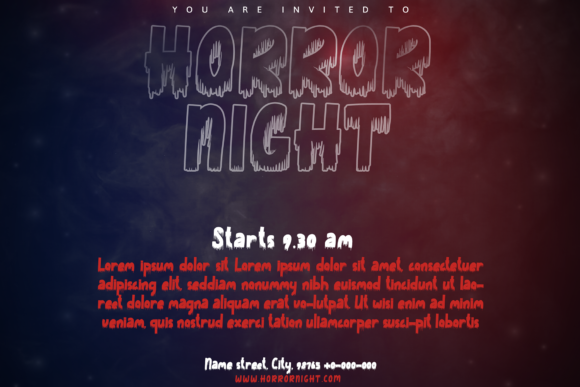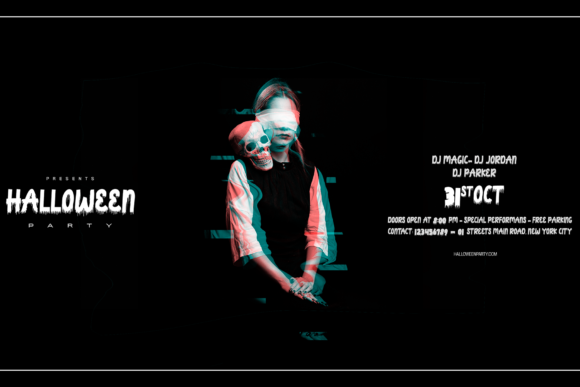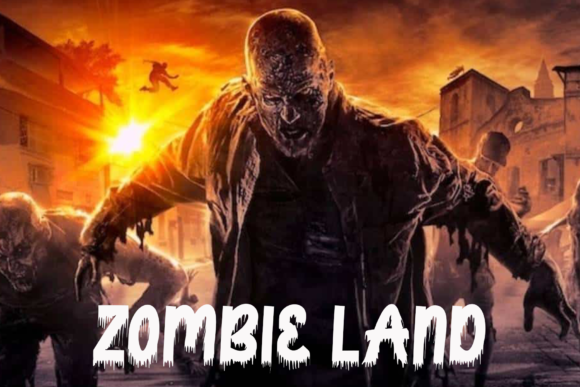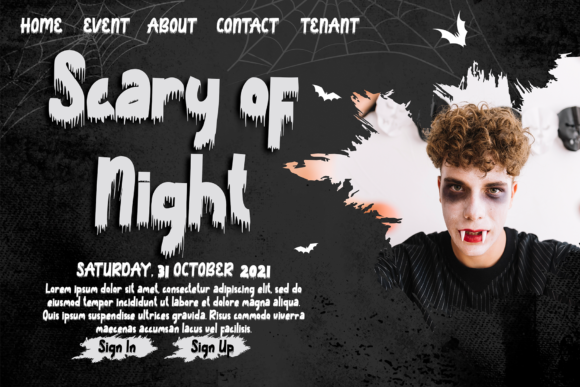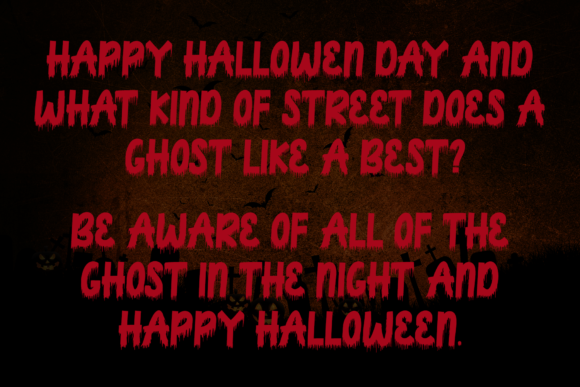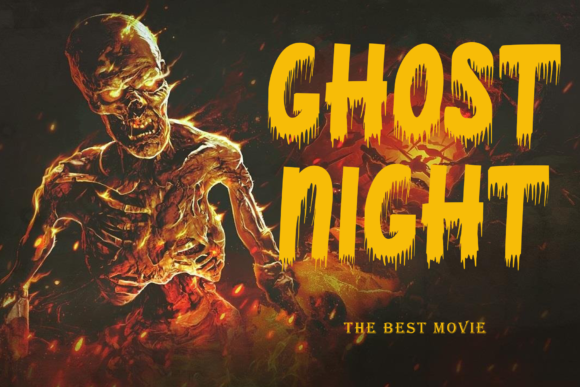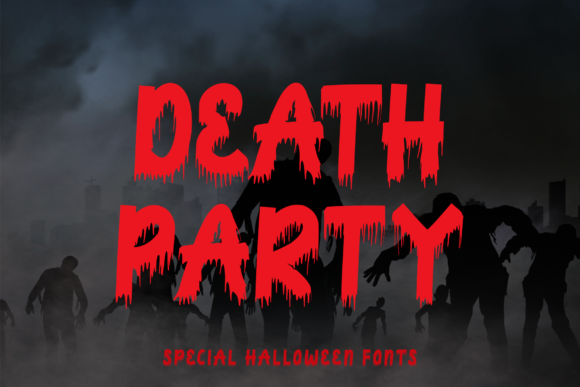
Unleash the Fun with Death Party Font: The Ultimate Display Font for Spooky-Chic Designs
Are you a designer or crafter looking for a font that adds a touch of joy and spookiness to your creations? Look no further than the Death Party Font! This fun and quirky display font is perfect for a wide range of design projects, from cartoon-related designs and children’s games to quotes, titles, brand names, book covers, posters, and more.
What is Death Party Font?
Death Party Font is a unique and eye-catching display font that combines a playful and spooky vibe. Its distinctive design makes it an excellent choice for designers who want to add a touch of whimsy and fun to their creations. Whether you’re working on a project for kids or adults, this font is sure to grab attention and leave a lasting impression.
Key Features of Death Party Font
- Fun and Spooky Design: Death Party Font boasts a playful and spooky design that adds a touch of joy to any project.
- Versatile: This font is perfect for a wide range of design projects, from cartoon-related designs and children’s games to quotes, titles, brand names, book covers, posters, and more.
- Easy to Read: Despite its quirky design, Death Party Font is easy to read, making it perfect for titles, headings, and short paragraphs.
- High-Quality: This font is designed with high-quality and crisp lines, ensuring it looks great in both digital and print formats.
Use Cases for Death Party Font
Death Party Font is an incredibly versatile font that can be used in a variety of design projects. Here are some use cases to get you started:
- Cartoon-Related Designs: Add a touch of fun and playfulness to your cartoon-related designs, such as character logos, animations, and comics.
- Children’s Games: Create engaging and interactive children’s games with a font that’s both fun and easy to read.
- Quotes and Titles: Use Death Party Font to add a touch of whimsy to your quotes, titles, and headings.
- Brand Names: Create a unique and memorable brand name with Death Party Font.
- Book Covers: Add a touch of spookiness and fun to your book covers, especially for children’s books and horror novels.
- Posters: Create eye-catching posters for events, promotions, and marketing campaigns.
Tips for Using Death Party Font
Here are some tips for using Death Party Font effectively in your design projects:
- Pair with Other Fonts: Pair Death Party Font with other fonts to create a unique and visually appealing combination.
- Experiment with Colors: Try out different colors to find the perfect match for your design project.
- Use it Sparingly: Use Death Party Font sparingly to avoid overwhelming your design. It’s perfect for titles, headings, and accents.
Death Party Font is a fun and spooky display font that’s perfect for designers and crafters looking to add a touch of joy and whimsy to their creations. With its versatile design, ease of use, and high-quality lines, this font is sure to become a staple in your design toolkit. So why wait? Download Death Party Font today and unleash the fun in your designs!
Whether you’re a seasoned designer or a beginner, Death Party Font is an excellent choice for any project that requires a touch of spookiness and fun. So go ahead, get creative, and have fun with Death Party Font!